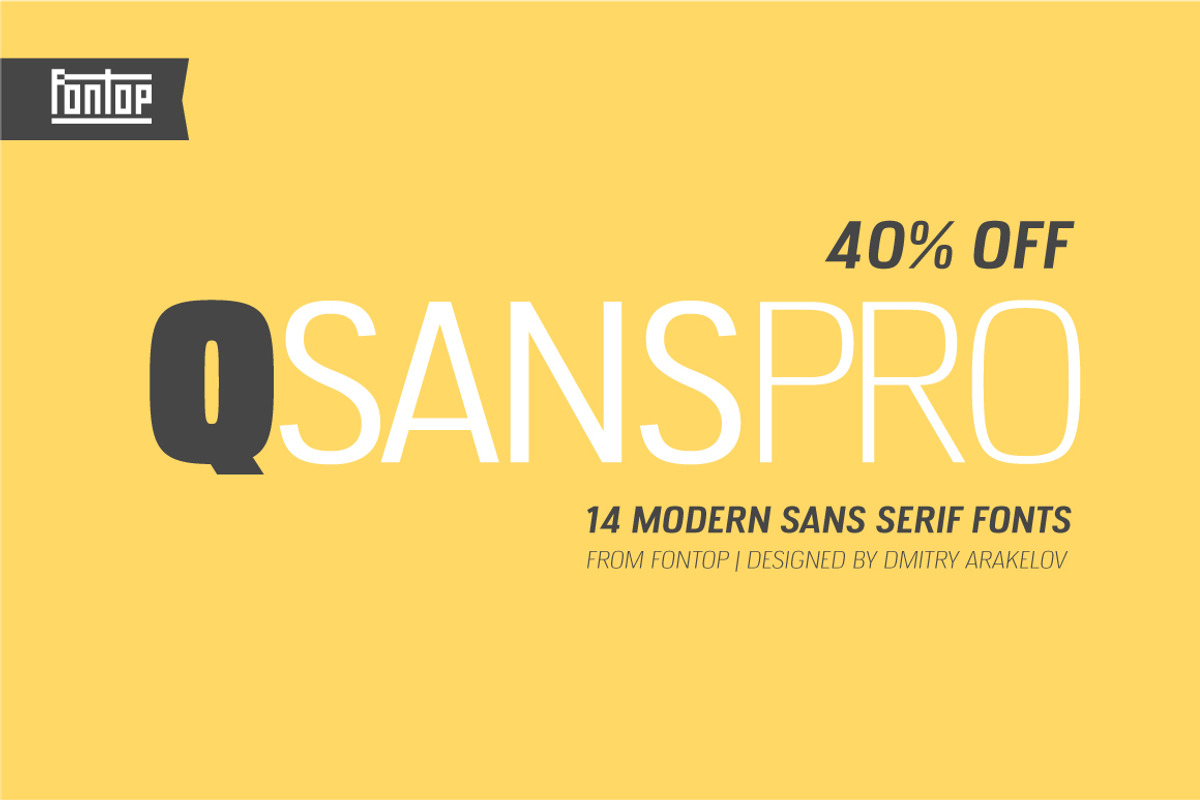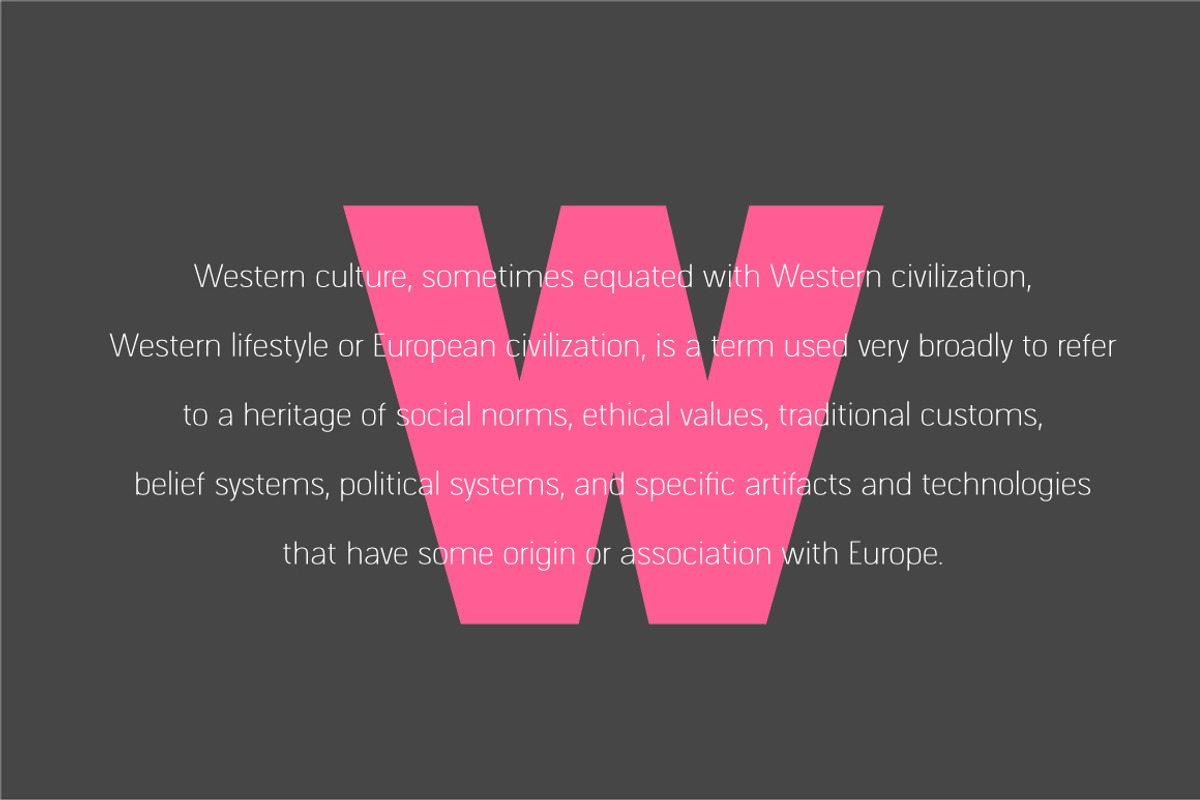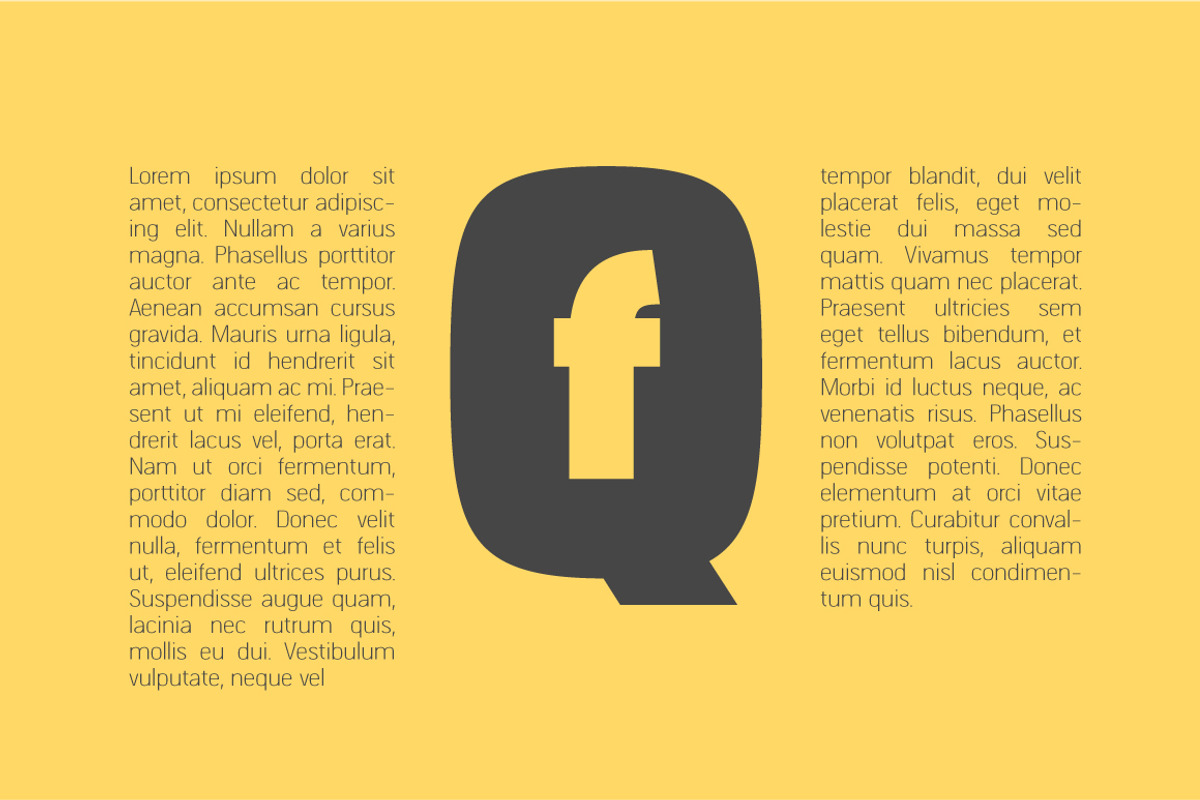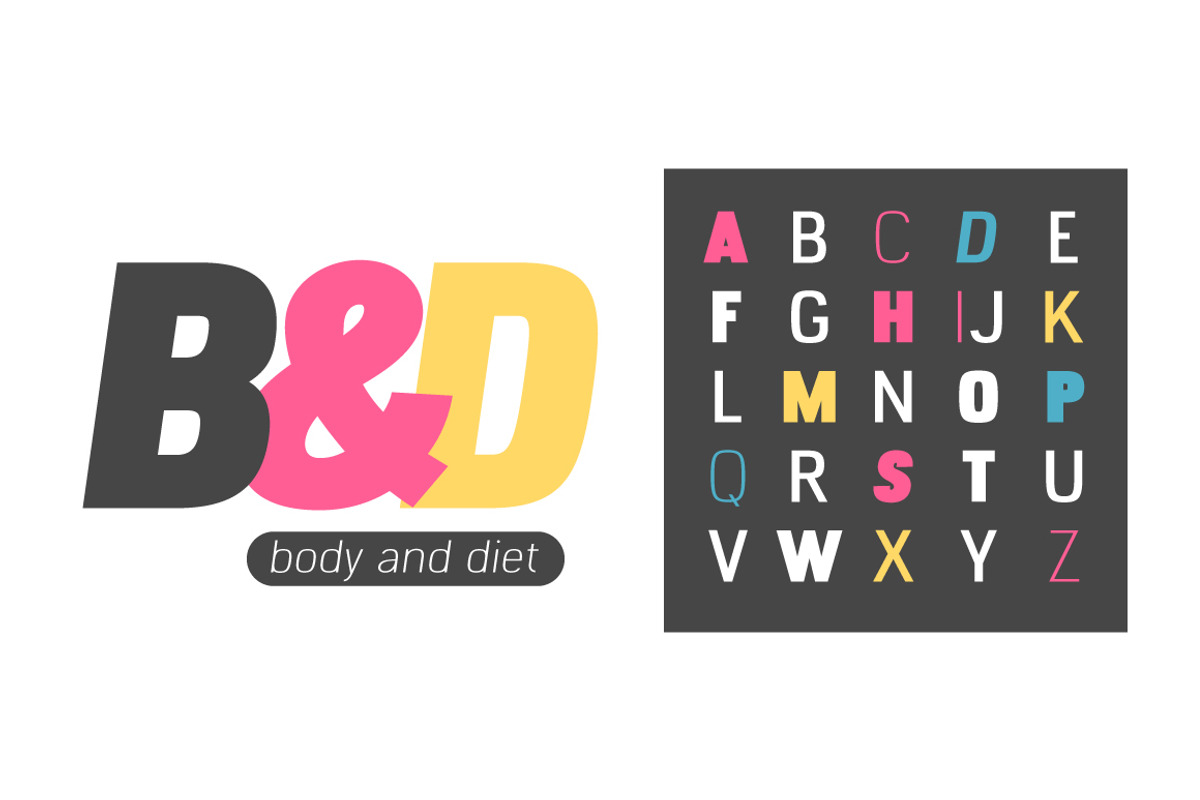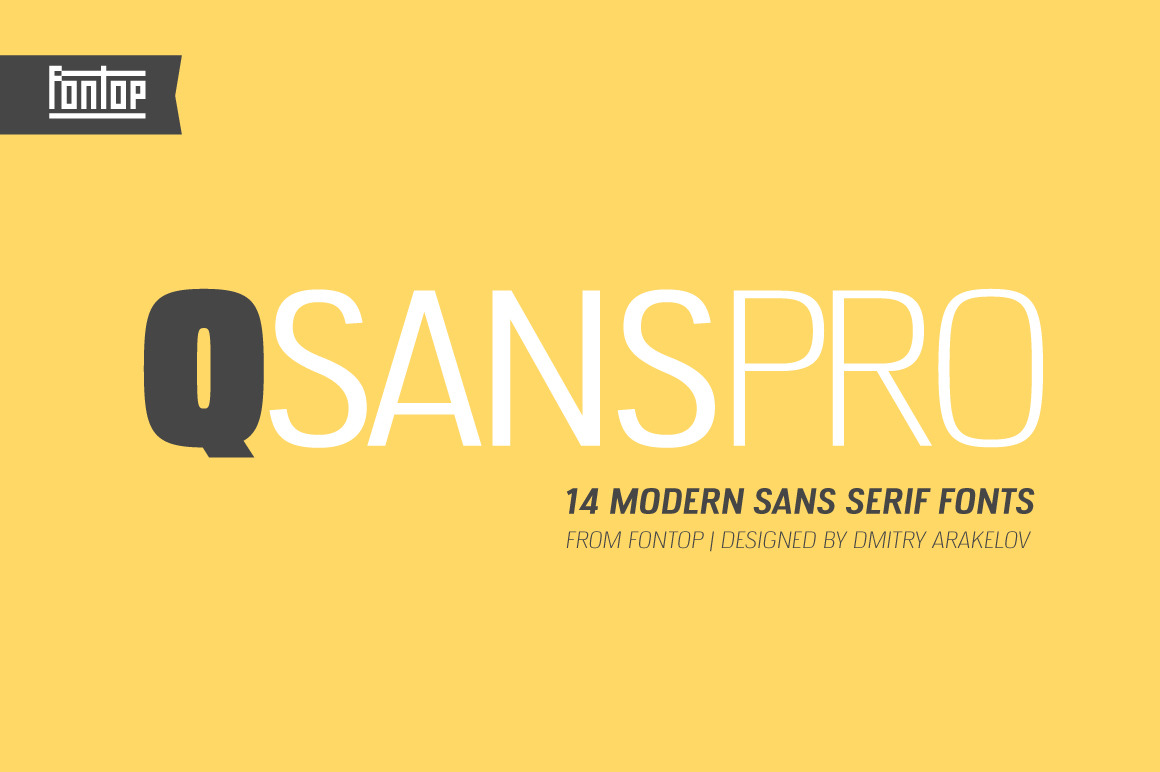
Q SANS PRO font family
Create bold headlines and elegant designs with a versatile QSansPro font family. Excellent for large type as well as logos, quotes, advertisements and more. QSansPro is a strong and sophisticated sans serif, yet classic and you'll keep coming back to it again. Each font in this family is full of character and can stand on its own.
Each font has Latin multilingual support as well as uppercase letters, lowercase letters, numbers and basic punctuations and all necessary ligatures and alternates.